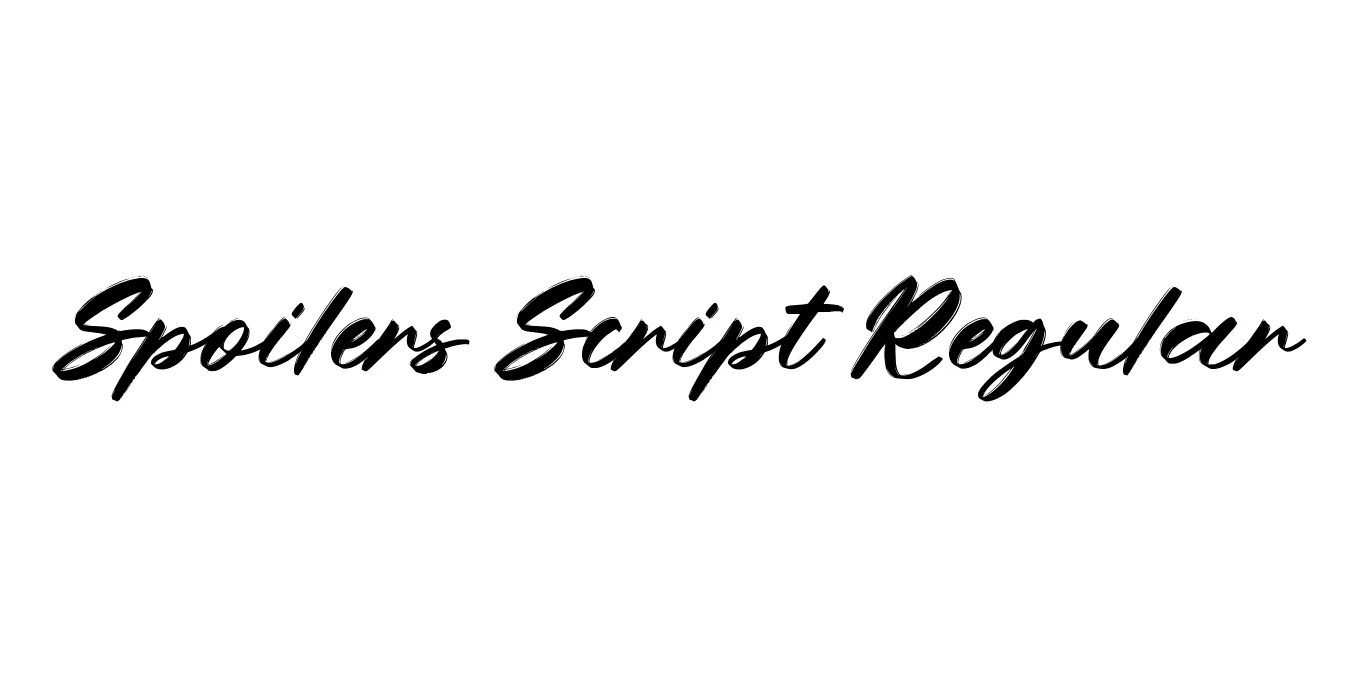
Spoilers Script Regular
Designed by Lettersiro
Spoilers Script Regular is a contemporary brush script typeface crafted by Lettersiro, designed to bridge the gap between traditional calligraphy and modern urban street art. Drawing inspiration from fast-paced hand-lettering and the aesthetic of custom automotive branding, it was developed to convey movement, speed, and raw energy. Since its release, the font has become a staple for designers seeking a high-pressure ink stroke aesthetic that mimics the organic flow of graffiti and professional sign painting.
Technically, Spoilers Script features an aggressive visual weight with a significant contrast between its saturated downstrokes and delicate connectors. The x-height is moderately compact, allowing the flourishing ascenders and descenders to dominate the composition, which creates a rhythmic, musical flow across the baseline. Its terminals are rounded to simulate marker bleed, while the consistent slant angle provides a sense of urgency and dynamism that maintains legibility through distinct character silhouettes even in high-speed visual contexts.
Spoilers Script Regular Best Uses
Ideal for high-impact logos in the fashion, automotive, and sports industries.
Works exceptionally well for event titles and promotional graphics requiring a human touch.
Perfect for t-shirt graphics, streetwear labels, and merchandise design.